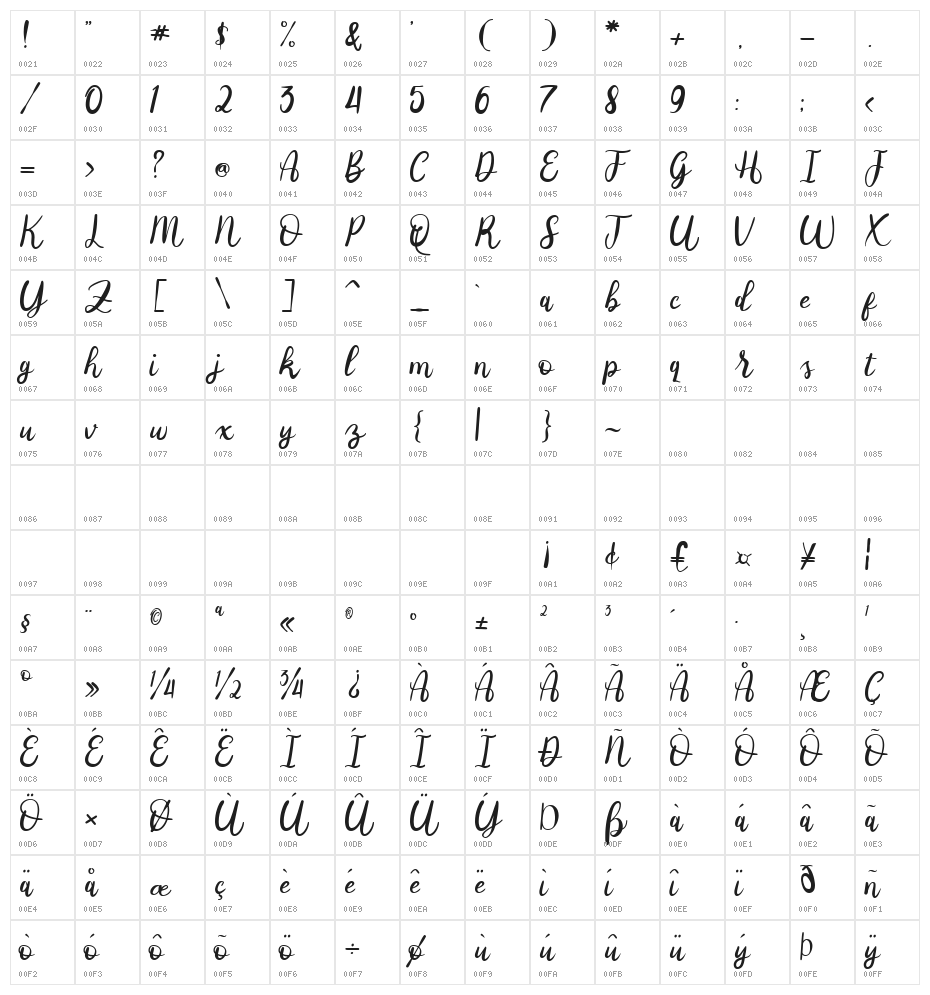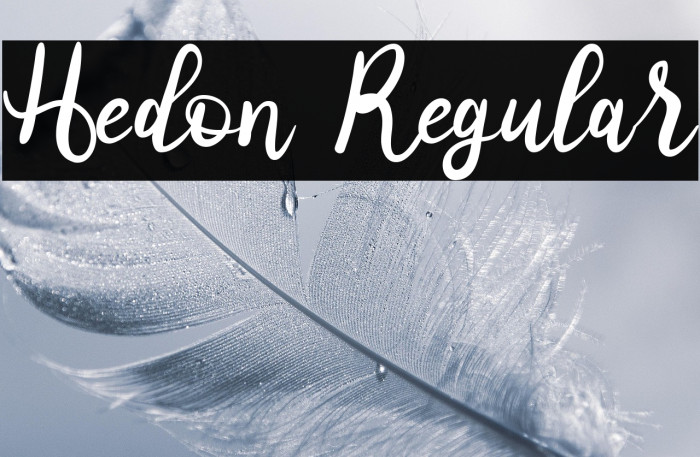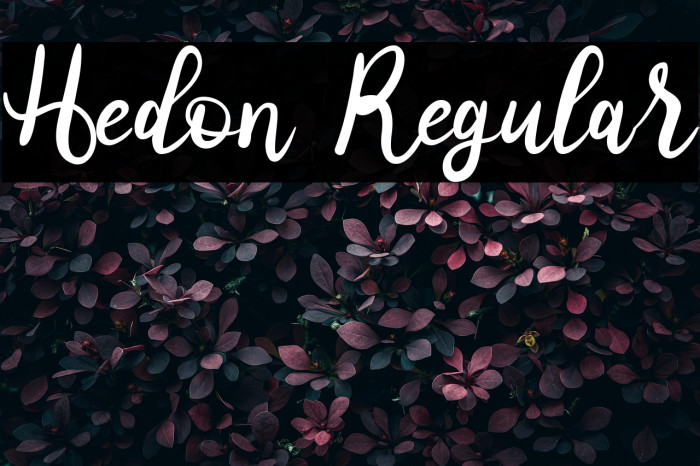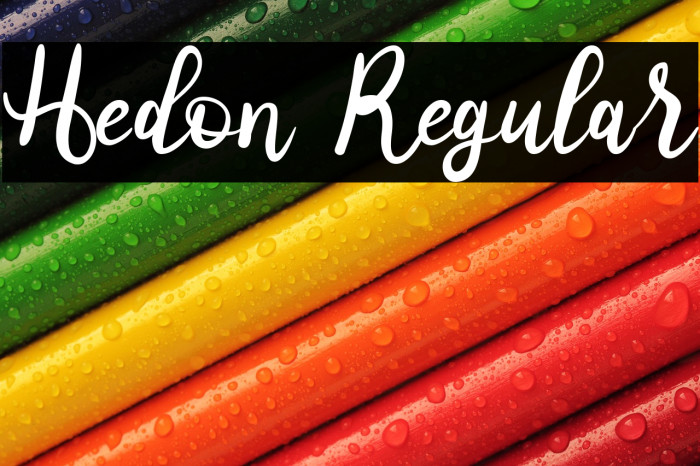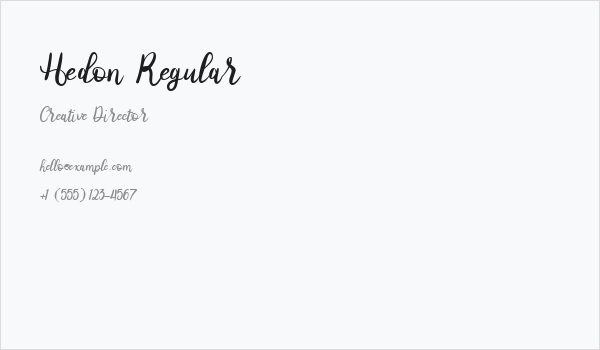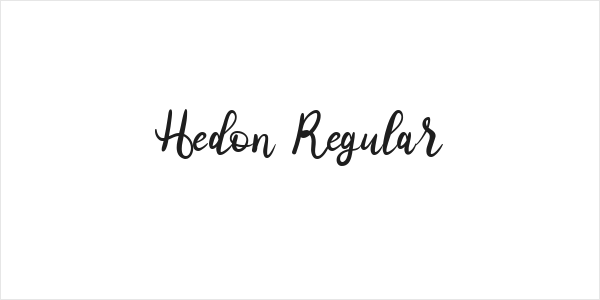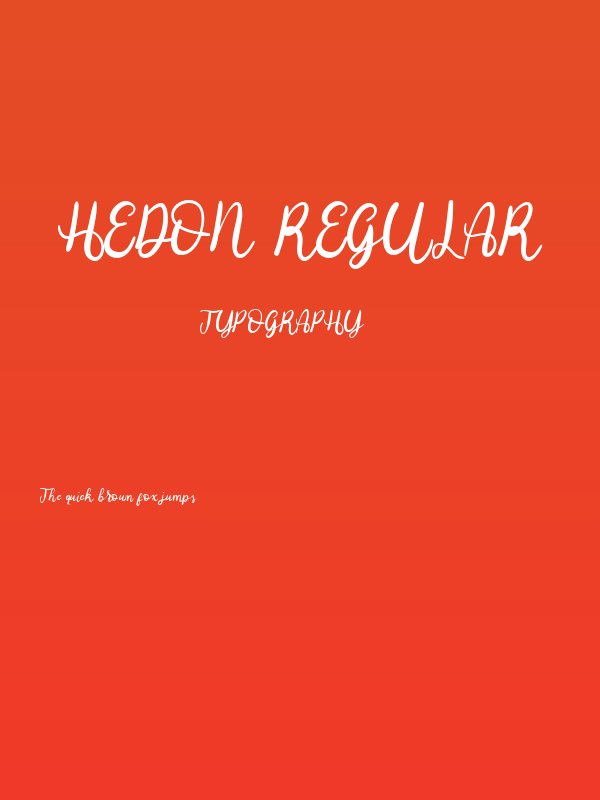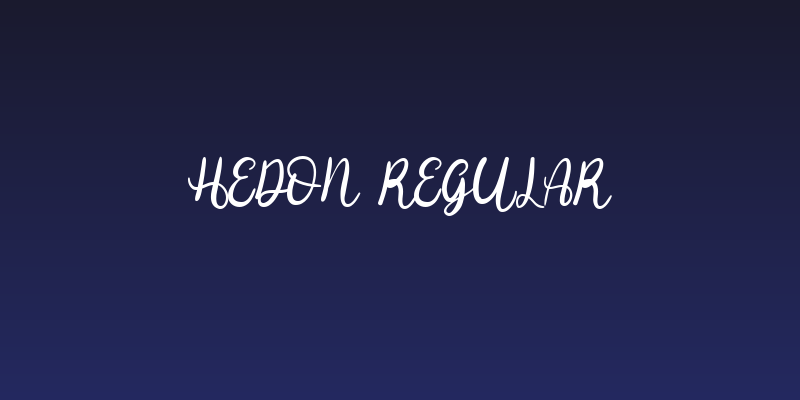
Hedon Regular Font
Hedon Regular Description
This font features a lively and dynamic script style with a handwritten appearance. The letters are fluid and connected, giving a sense of movement and elegance. The uppercase letters are bold and slightly slanted, while the lowercase letters maintain a consistent flow with rounded edges. The numerals are distinct and maintain the same energetic style, making them easily readable. Special characters are creatively integrated, adding to the overall playful and artistic feel. This font is ideal for projects that require a personal touch or a creative flair.
| Use Case | Logos, Invitations, Greeting cards |
| Proposed Projects | Ideal for wedding invitations, greeting cards, branding, and creative projects that require a personal touch. |